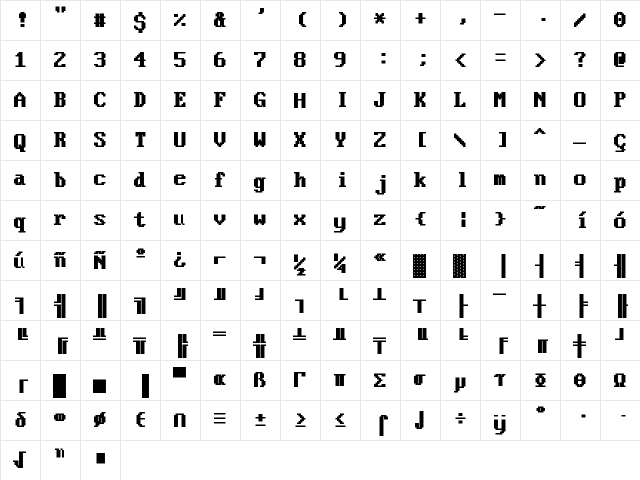
VideoTerminalScreen-Normal Bold Regular Font Preview
VideoTerminalScreen-Normal Bold Regular
Design Context for VideoTerminalScreen-Normal Bold Typeface
VideoTerminalScreen-Normal Bold offers clean, dependable letterforms without strong stylistic allegiance, making it a practical choice for designers who need flexibility. The heavy weight commands attention and anchors typographic hierarchies.